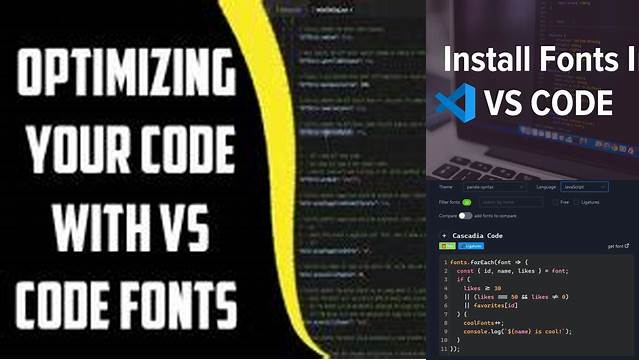
VSCode Fonts: Download & Customize Your Code Editor
Hey guys! Ever feel like your code editor needs a little personality? One of the easiest ways to do that is by changing the font! In this comprehensive guide, we're going to dive deep into the world of VSCode fonts. We'll cover everything from finding the perfect font for your coding style to installing and configuring it in VSCode. So, buckle up and get ready to transform your coding experience!
Why Bother Changing Your VSCode Font?
Let's be real, staring at code for hours can be a real strain on the eyes. The default font in VSCode is perfectly functional, but it might not be the most visually appealing or comfortable for everyone. Choosing the right font can make a world of difference. It can:
- Improve readability: A well-chosen font makes it easier to distinguish between different characters, reducing eye strain and making your code easier to scan.
- Enhance your coding experience: Let's face it, a cool-looking font can make coding feel more enjoyable. It's like giving your workspace a little makeover!
- Reduce errors: A clear and distinct font can help you spot typos and other errors more easily.
- Boost your productivity: When your code is easier to read, you can work faster and more efficiently.
Think of it like this: you wouldn't wear uncomfortable shoes for a marathon, would you? Similarly, you shouldn't use a font that makes your eyes tired when you're coding for extended periods. Your font is your coding shoe! So, let's find the perfect fit.
Finding the perfect font is subjective, but there are definitely some key characteristics to look for. Readability is paramount. You want a font where each character is distinct, especially those that are easily confused, like 0
and O
, or l
and 1
. A monospaced font is generally preferred for coding. This means that each character takes up the same horizontal space, which helps with code alignment and readability. Consider the overall aesthetic. Do you prefer a clean, minimalist font, or something with a bit more character? There are tons of options out there, so experiment and see what resonates with you.
To summarize, changing your VSCode font isn't just about aesthetics; it's about creating a coding environment that's comfortable, efficient, and even enjoyable. So, let's move on and explore some fantastic font options!
Top Fonts for VSCode: Our Favorite Picks
Okay, now for the fun part! Let's talk about some of the best fonts for VSCode that are out there. These are some of the most popular and highly-rated fonts among developers, known for their readability and overall aesthetic appeal. We've included a mix of free and paid options, so there's something for everyone.
Fira Code: This is a super popular, free font specifically designed for coding. What makes Fira Code stand out are its font ligatures. Ligatures combine certain character combinations (like
=>
or!=
) into single, more readable symbols. This can make your code look cleaner and easier to understand. Fira Code is a monospaced font with excellent readability, even at smaller sizes. It's a fantastic choice for anyone looking to enhance their coding experience. The use of ligatures greatly improves the visual parsing of code, making complex logic easier to follow. The consistent character width inherent in monospaced fonts contributes to code alignment, further enhancing readability. The design of Fira Code prioritizes clarity and distinction between characters, minimizing the potential for misinterpretation, which is a common issue with some less optimized fonts. The font’s widespread popularity is a testament to its effectiveness in reducing eye strain and improving coding efficiency. For developers who spend countless hours in front of their screens, Fira Code offers a comfortable and visually appealing alternative to default system fonts, making it a must-try for anyone serious about optimizing their development environment. -
JetBrains Mono: JetBrains, the company behind popular IDEs like IntelliJ IDEA, created this free font specifically for developers. JetBrains Mono is designed with coding in mind. It has a taller x-height, making lowercase letters more distinct, and clear, unambiguous glyphs. It also features ligatures, similar to Fira Code. JetBrains Mono aims to reduce eye strain and improve focus during coding sessions. The designers at JetBrains meticulously crafted this font to address the specific challenges faced by developers, such as distinguishing between visually similar characters and maintaining readability over extended periods. The taller x-height is a crucial feature, as it increases the visual prominence of lowercase letters, which are frequently used in code. This reduces the cognitive effort required to parse code, leading to faster comprehension and fewer errors. The unambiguous glyphs are another key aspect of JetBrains Mono's design, ensuring that each character is easily identifiable, regardless of the surrounding characters. The inclusion of ligatures, while not essential, further enhances the visual appeal and readability of the code. Overall, JetBrains Mono is a well-considered and highly effective font for coding, reflecting JetBrains' deep understanding of developer needs.
Cascadia Code: Developed by Microsoft, Cascadia Code is another excellent free and open-source font. It was initially created for the Windows Terminal and VS Code. Cascadia Code also includes ligatures and is designed to be clear and readable on screen. This font has a modern, slightly more rounded appearance compared to some other monospace fonts. Microsoft’s foray into font design with Cascadia Code demonstrates their commitment to providing a comprehensive and user-friendly developer experience. The font’s clean and contemporary aesthetic aligns well with modern coding environments, contributing to a more visually appealing workspace. The inclusion of ligatures, a now-standard feature in many coding fonts, allows for a more fluid and natural reading experience, as common character combinations are rendered as single, easily recognizable symbols. Cascadia Code's design also prioritizes legibility across a range of screen resolutions and sizes, ensuring that code remains clear and readable even on smaller displays or when viewed from a distance. The open-source nature of Cascadia Code further enhances its appeal, as it allows for community contributions and ensures that the font will continue to evolve and improve over time. For developers who appreciate a modern and well-designed typeface, Cascadia Code is a compelling choice that seamlessly integrates with the Windows ecosystem and beyond.
Operator Mono: This is a premium (paid) font known for its distinctive italic style. Operator Mono has a more humanistic feel than many other monospace fonts, making it a popular choice for developers who want a font with personality. Its unique italics can help distinguish comments or other specific code elements. While it comes with a price tag, many developers find its aesthetic appeal worth the investment. The distinctive italic style of Operator Mono is its defining characteristic, setting it apart from the more utilitarian designs of many other monospace fonts. This unique italic form adds a touch of elegance and visual flair to code, making it a popular choice for developers who appreciate aesthetics. The humanistic feel of Operator Mono, derived from its design that echoes the proportions and curves of handwriting, contributes to a more organic and approachable appearance. This can make the coding experience more enjoyable and less sterile, particularly for developers who spend long hours immersed in their work. While the cost of Operator Mono may be a barrier for some, its premium design and the enhanced visual clarity it provides can be a worthwhile investment for those who value both aesthetics and functionality in their coding environment. The ability to visually differentiate comments and other code elements through the italic style is a practical benefit that further enhances the font’s appeal.
Remember, your font is a crucial part of your coding environment. It can impact your readability, your comfort, and even your productivity. Don't be afraid to experiment and find a font that you truly love. There are so many amazing options out there, and the perfect font for you is waiting to be discovered.